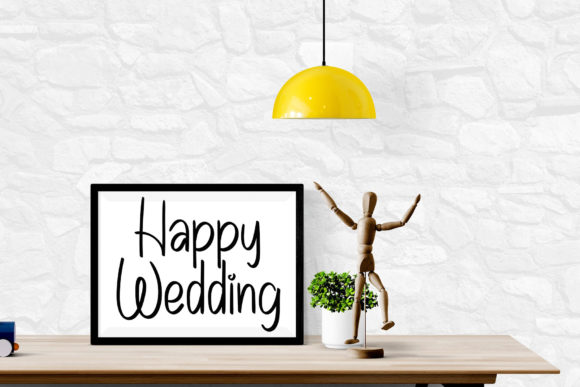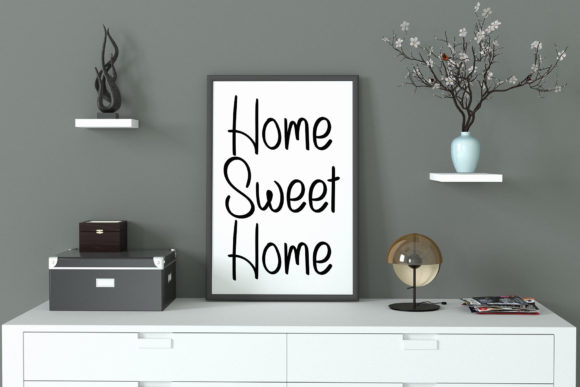
Butter Love Font
db-ku.com - Script & Handwritten -- Butter Love is a unique and elegant script font, perfect for use on invitation cards, greeting cards, party events, billboards, logos, business cards and any other design that requires a handwritten touch. This font features varied baselines, fine lines, beautiful glyphs and makes your ideas look exquisite and complementary to your work.